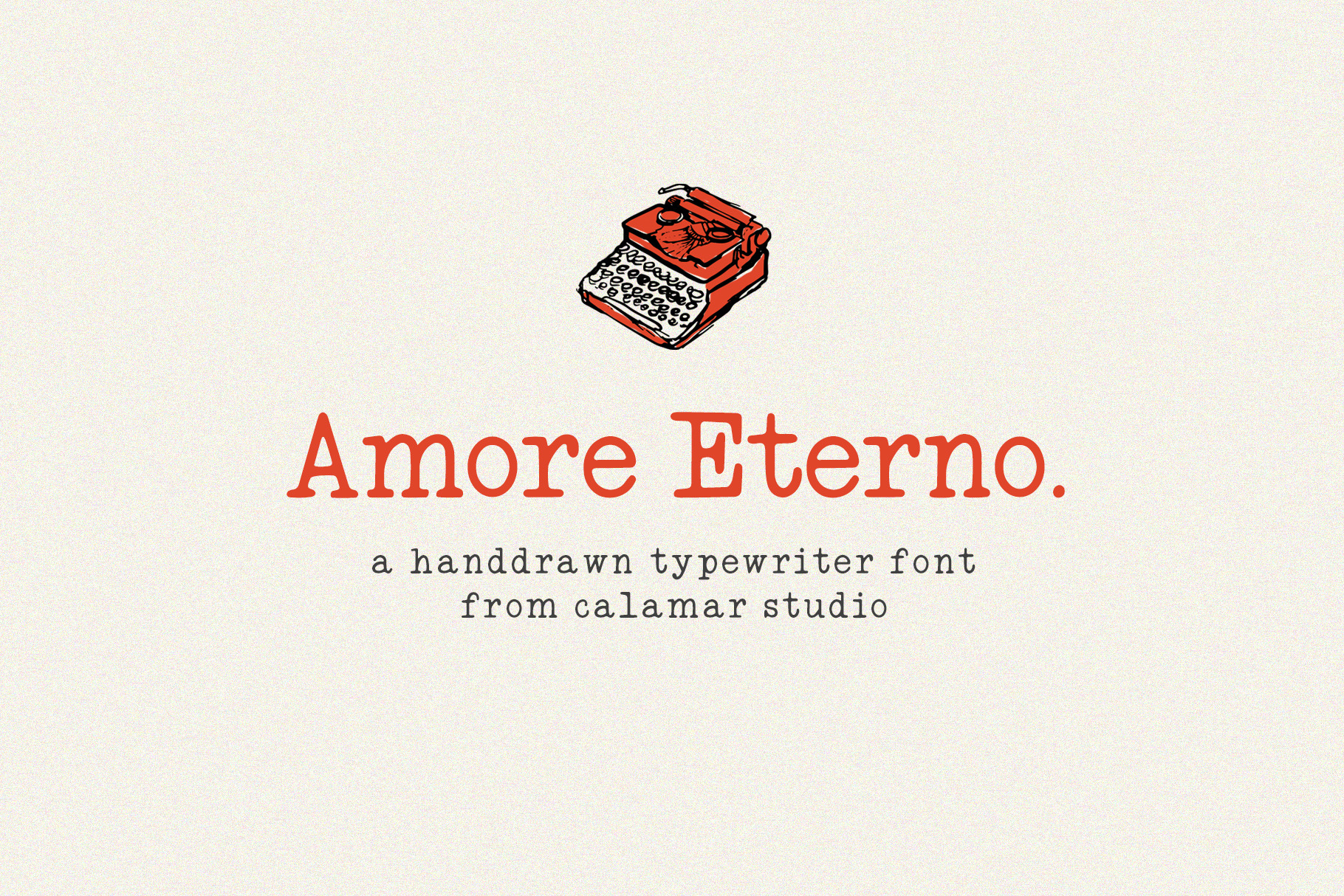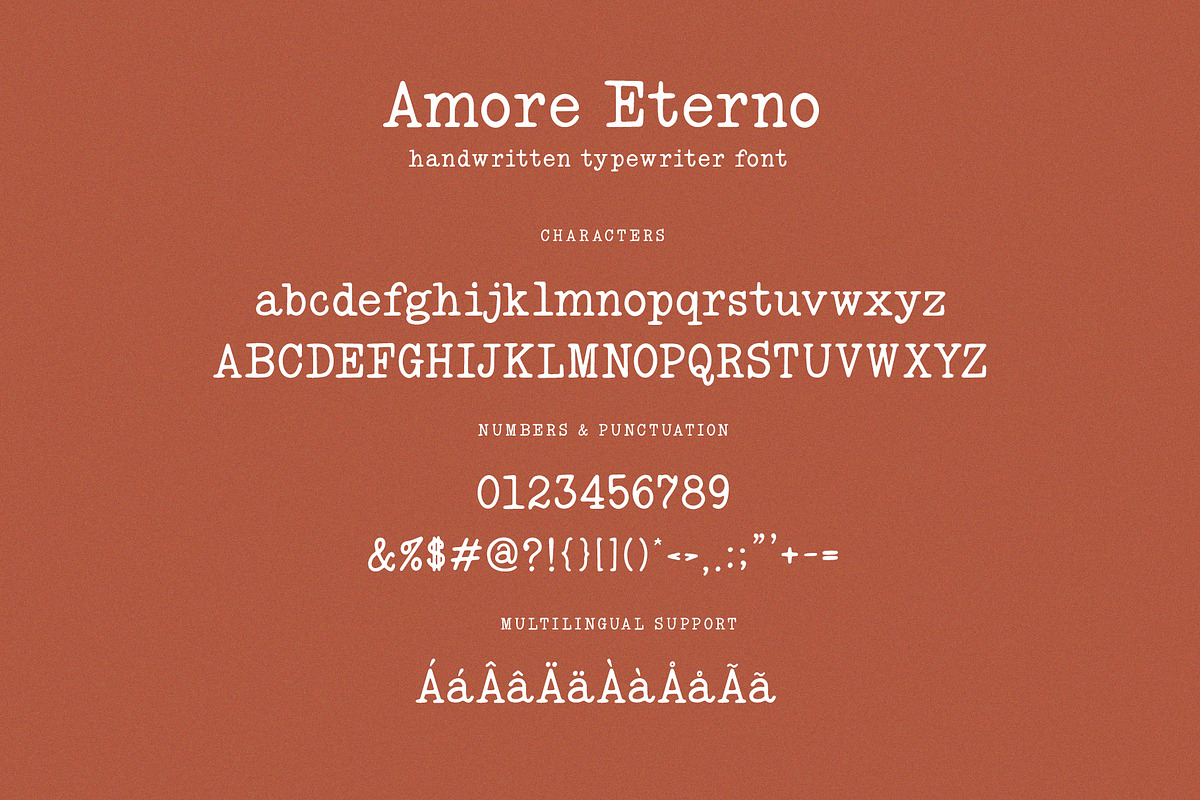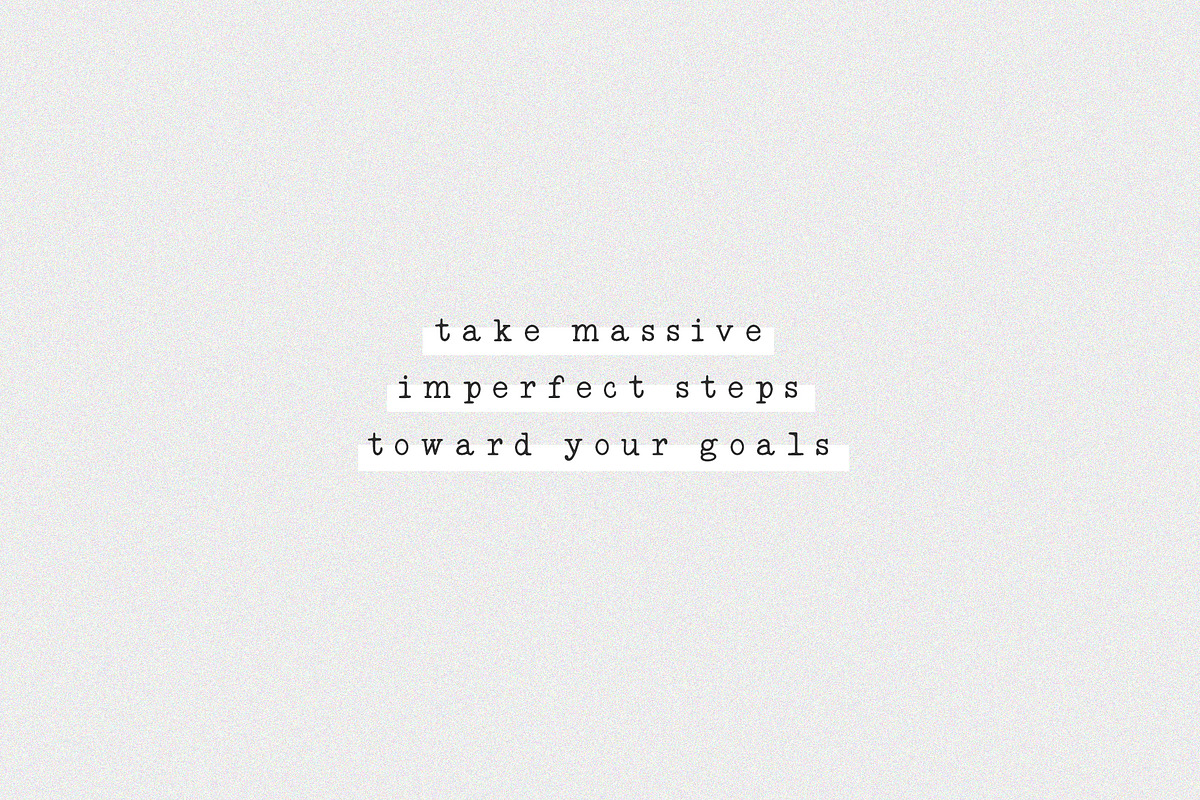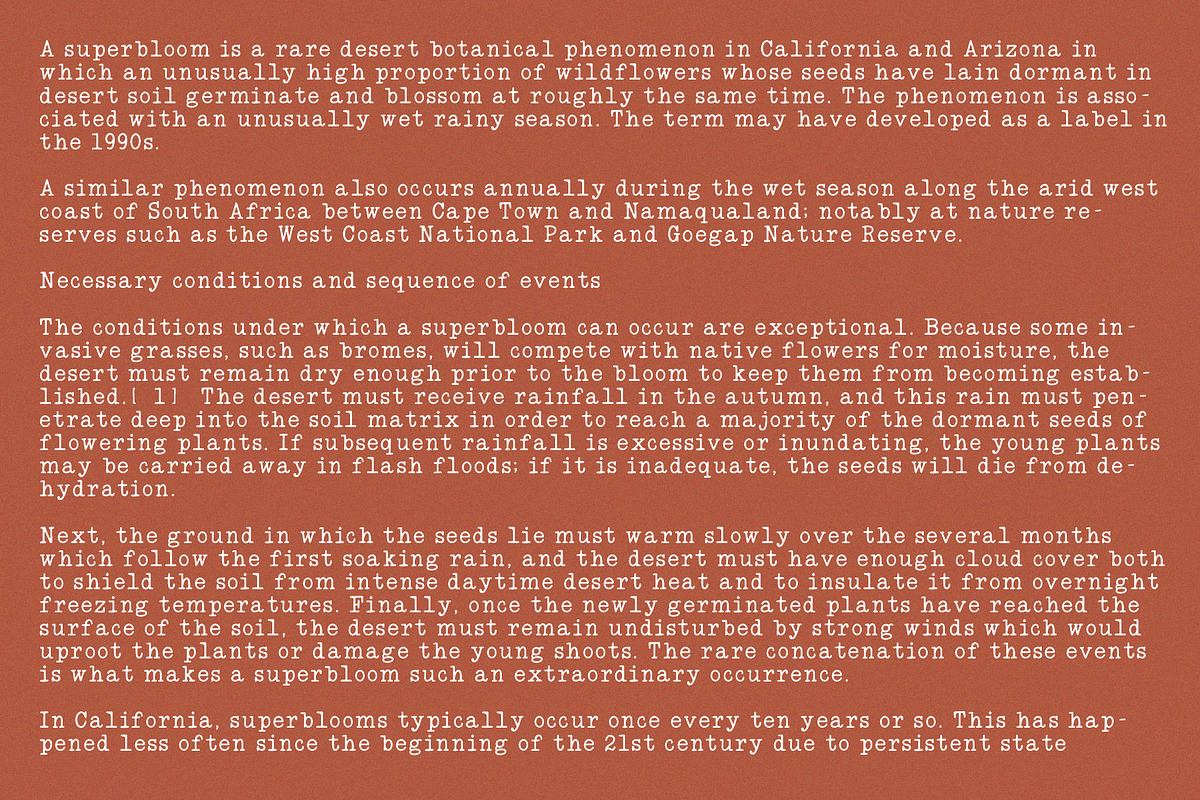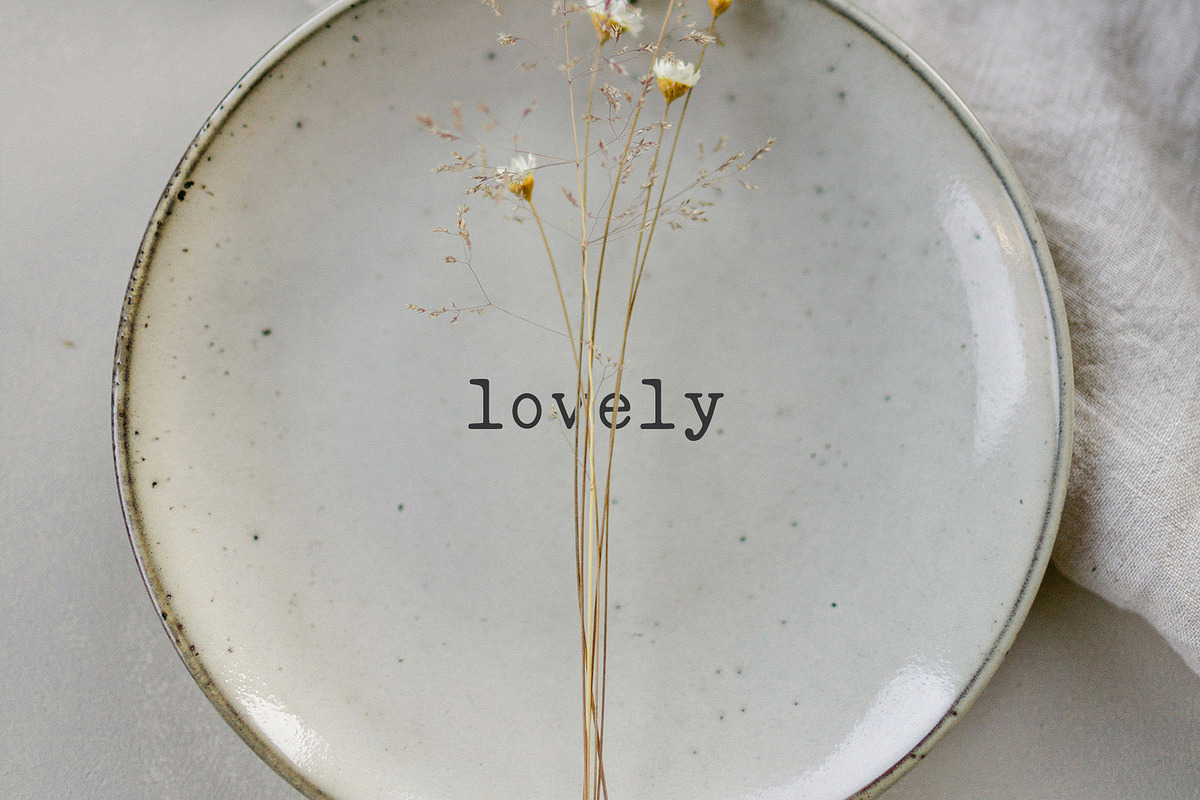
Amore Eterno Retro Typewriter Font
Amore Eterno is a handwritten typewriter font designed for to add a retro vibe for your designs. It's imperfect, messy and maybe childish but it's perfect for notes, print on demand designs, wall art, quotes, logo designs, Valentine's cards etc. This font is a must have if you love retro fonts.